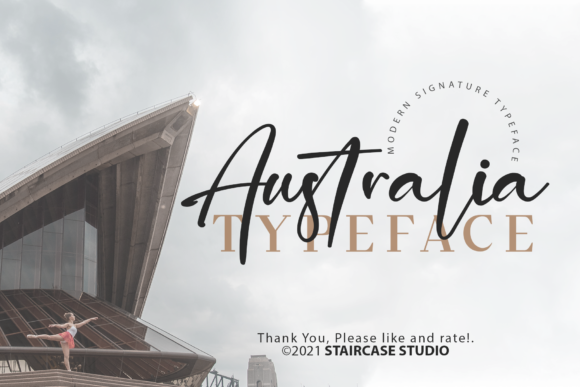
The Ultimate Guide to Australia Font: A Charming Handwritten Delight
I’ll never forget the time I was working on a craft project, pouring my heart and soul into creating the perfect design. But, as I sat staring at my computer screen, I realized I was stuck – struggling to find the right font to bring my vision to life. That’s when I stumbled upon the Australia Font, and it was love at first sight! 💕
This charming handwritten font has a flowing style and beautifully rounded characters that instantly captured my heart. I knew right then and there that I had to share it with fellow designers, crafters, and creative hobbyists like you. So, let’s dive in and explore what makes Australia Font so special!
A Honest Review: What I Love and What to Watch Out For
• 💫 Unique and charming handwritten style that’s perfect for creative designs
• ✅ Beautifully rounded characters that add a touch of warmth to your text
• 🎨 Highly versatile and suitable for a wide range of design projects, from crafts to branding
• 👍 Easy to read and understand, even in smaller font sizes
• ⚠️ Some characters may appear a bit inconsistent in terms of letter spacing, which can affect readability in certain contexts
• 🤔 Limited availability of language support, which might be a concern for designers working with non-English text
The Story Behind Australia Font: Designer Inspiration
Australia Font was designed with the intention of creating a unique, handwritten font that captures the essence of creativity and playfulness. The designer aimed to create a font that would be both elegant and approachable, making it perfect for a wide range of design projects.
Although the designer’s true identity remains a mystery, their passion for typography and design is evident in every detail of Australia Font.
Q: What type of designs is Australia Font best suited for?
A: Australia Font is highly versatile and can be used for a wide range of design projects, including crafts, branding, packaging, and more.